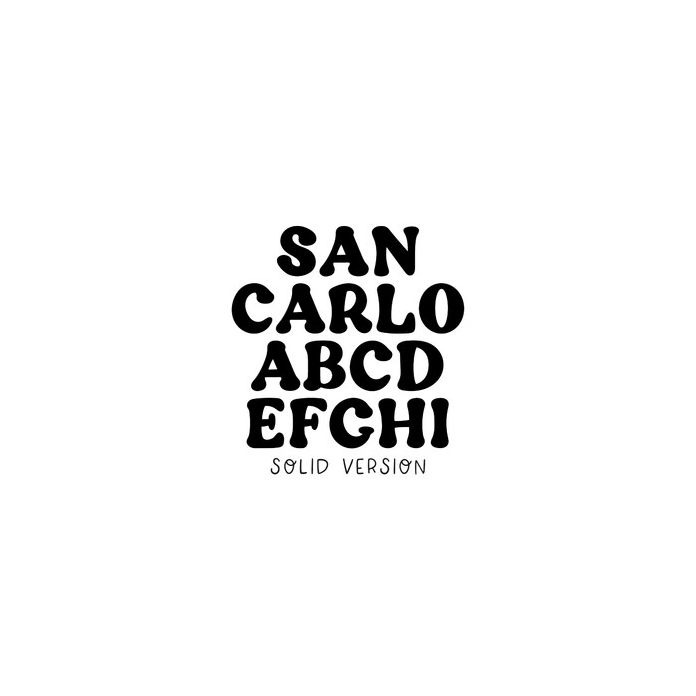
BFC San Carlo Solid Retro Modern Serif Font
San Carlo Solid is a modern font that can be layered with our outline version to create a multi-colored design.